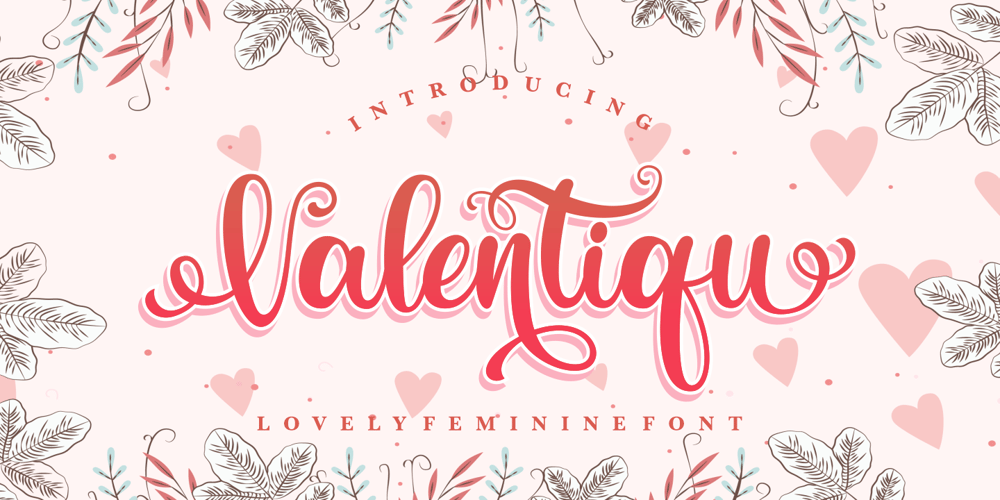
Valentiqu Font Family was designed by Burhan Afif and published by HansCo. Valentiqu contains 1 styles and family package options. Valentiqu is a feminine modern handwritten font, carefully handcrafted to become a true favorite. Its casual charm makes it appear wonderfully down-to-earth, readable and, ultimately, incredibly versatile. Valentiqu will look outstanding in any context, whether it’s being used on busy backgrounds or as a standalone headline!Comes with a full uppercase, lowercase, numbers and punctuation + standard multilingual support. It’s great for branding, logo designs, lettering, logotype, craft, posters, packaging and much more. We recommend using Adobe Illustrator or Photoshop.Tutorial how to Install & use Alternate / Special Character : https://hanscostudio.com/tutorial/Enjoy!